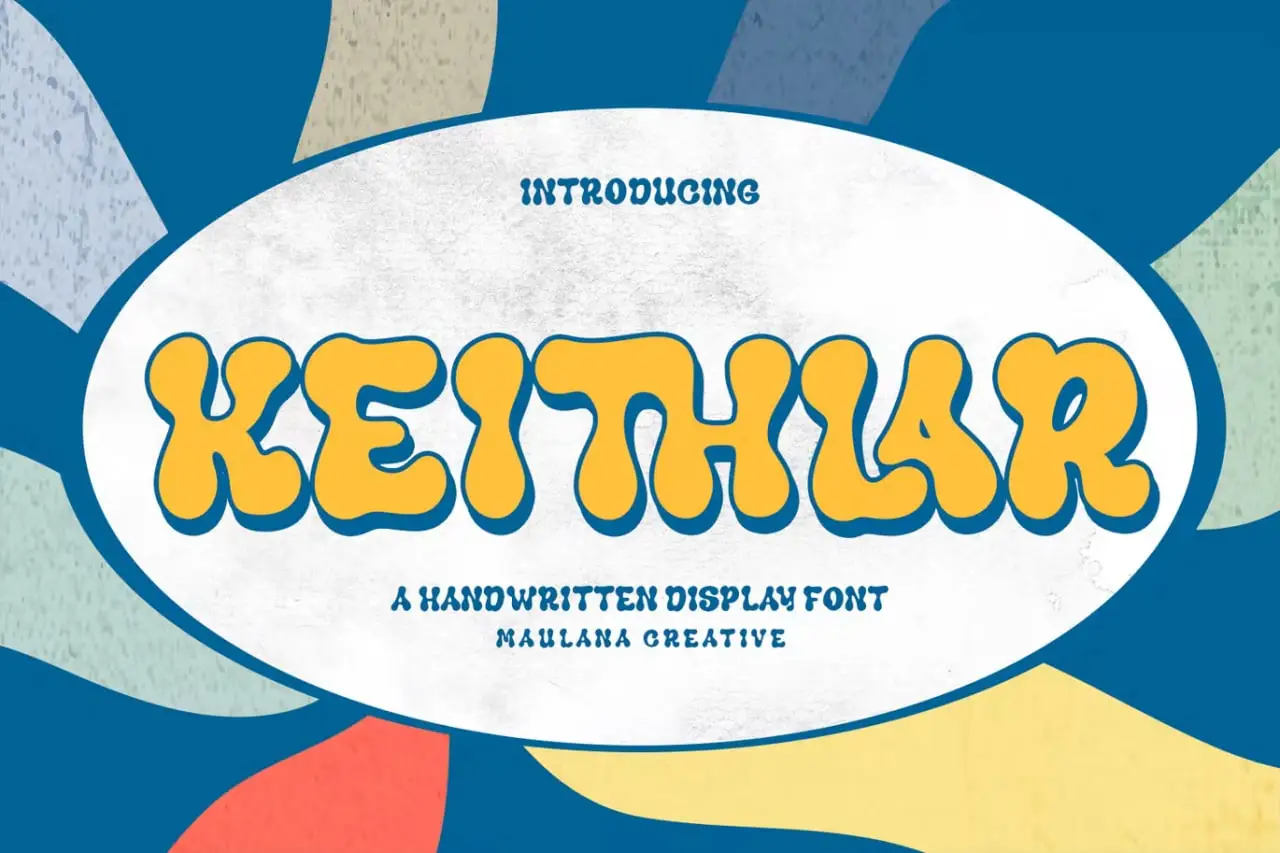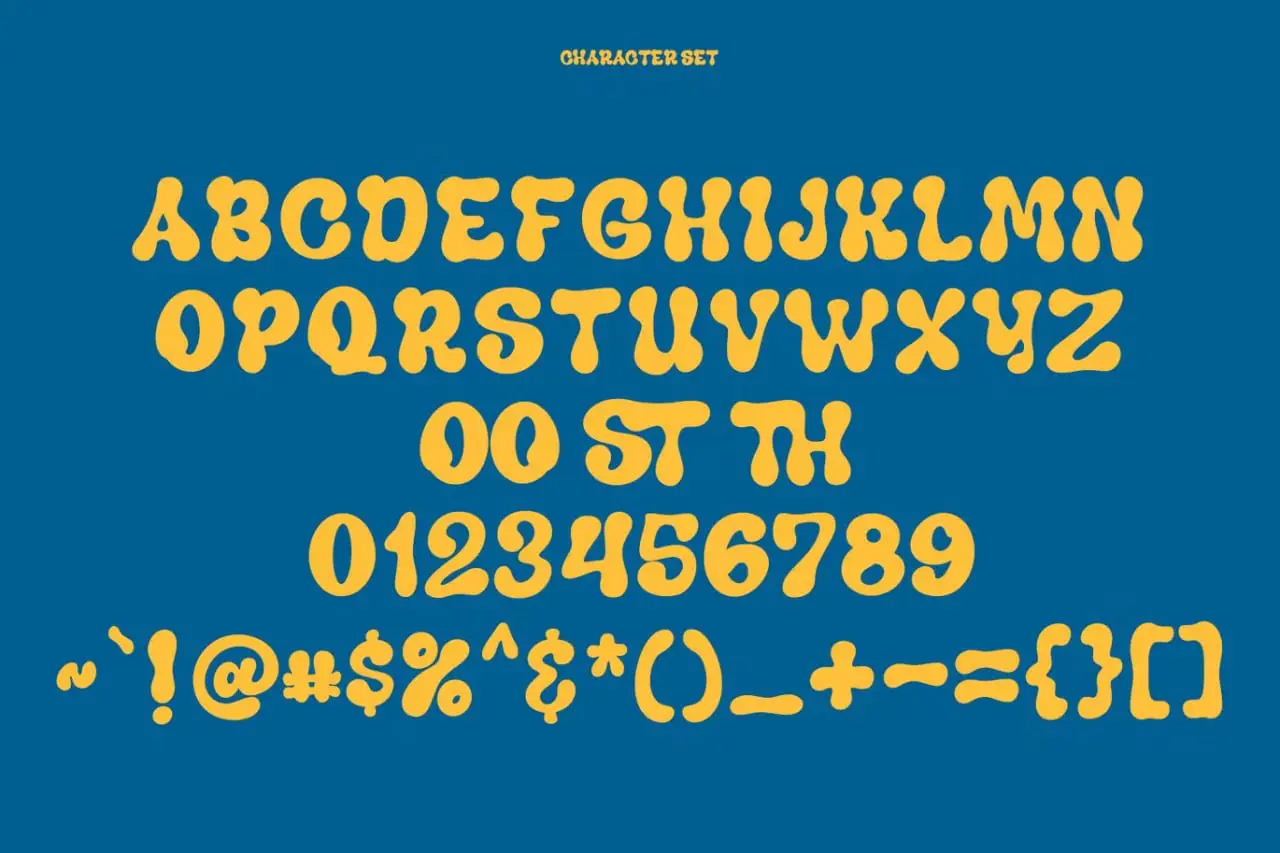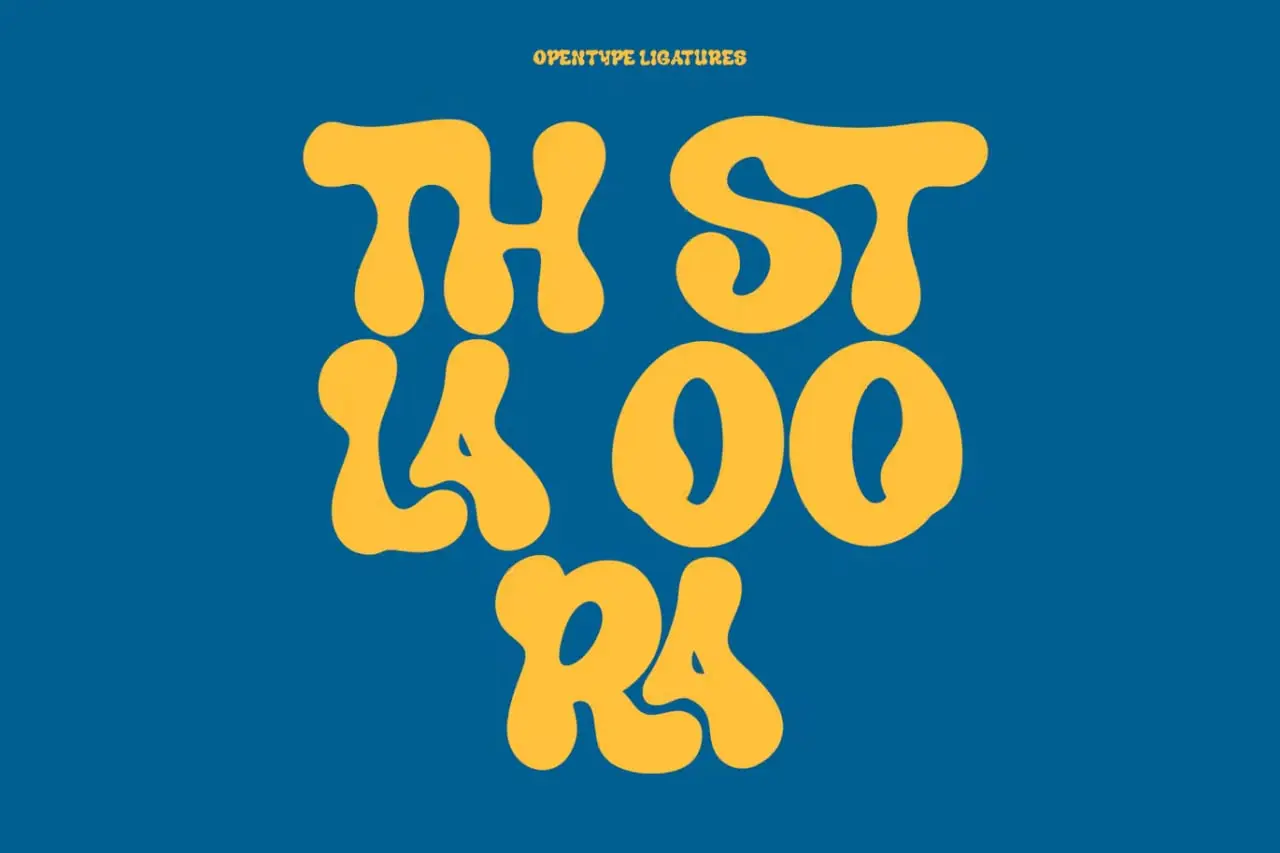
The Keithlar Display Font is a striking typeface designed to make a bold statement in any project. With its unique character shapes and elegant curves, this font is perfect for branding, logos, and eye-catching headlines.
- Stylish display font with distinctive letterforms
- Available in multiple weights for versatile usage
Utilize this font for impactful branding, stylish promotional materials, or as a standout element in your web design. Its versatility makes it suitable for both modern and classic aesthetics.